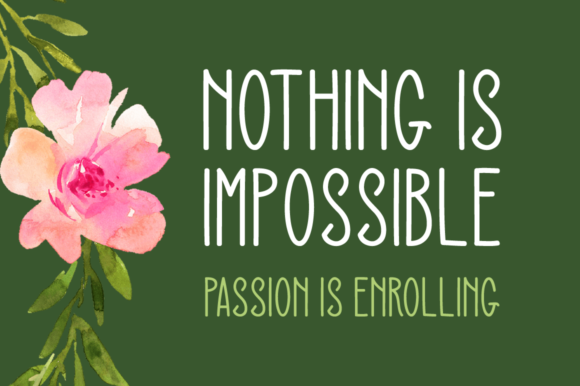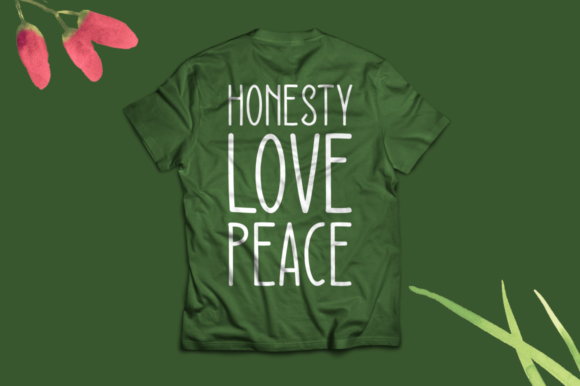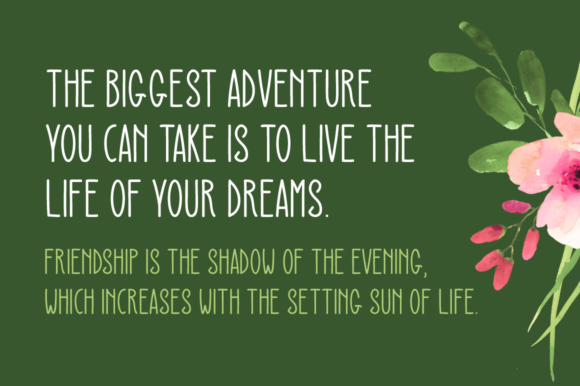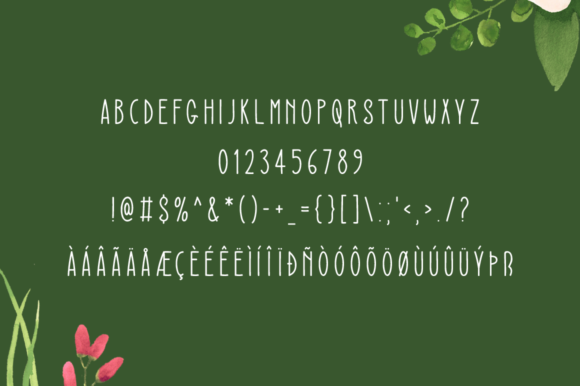
Sensation Font
About Sensation Font
The Sensation is a brand new modern display font. It’s perfectly suited for stationery, logos, t-shirts, papers, print designs, website headers, photo frames, flyers, music covers, posters, image sliders and much more.